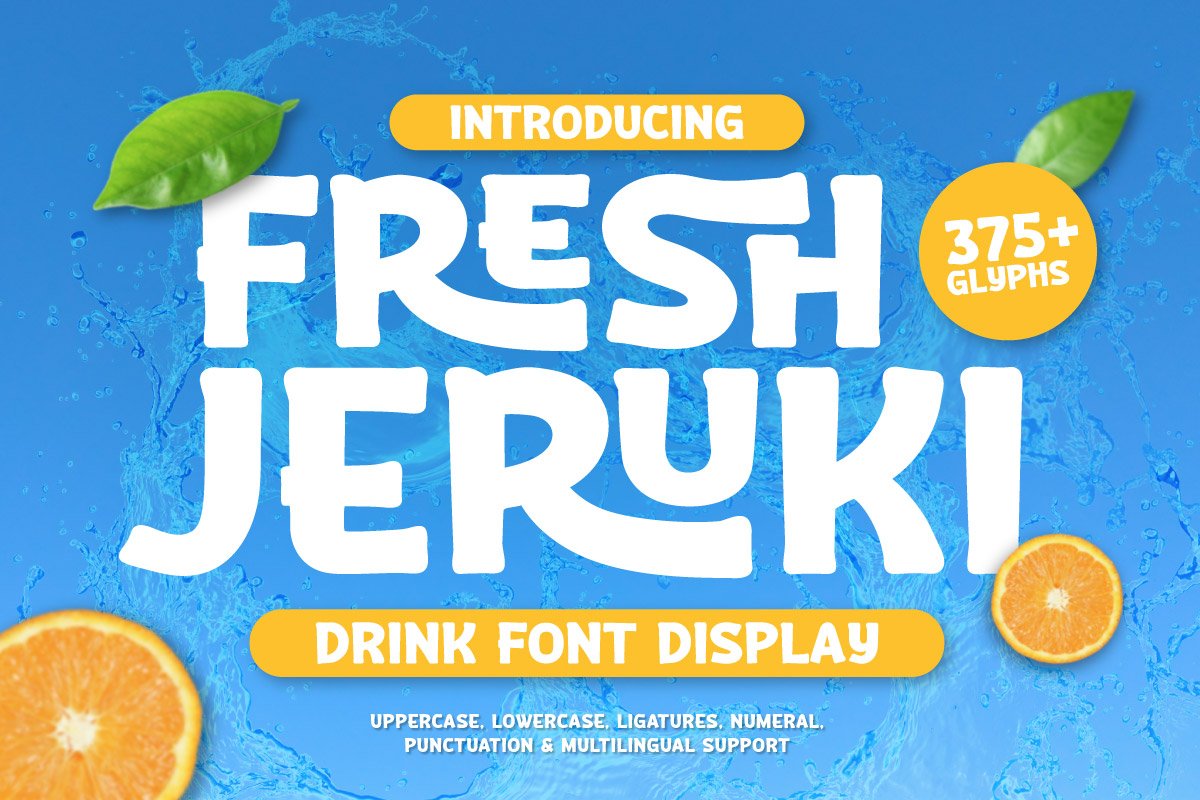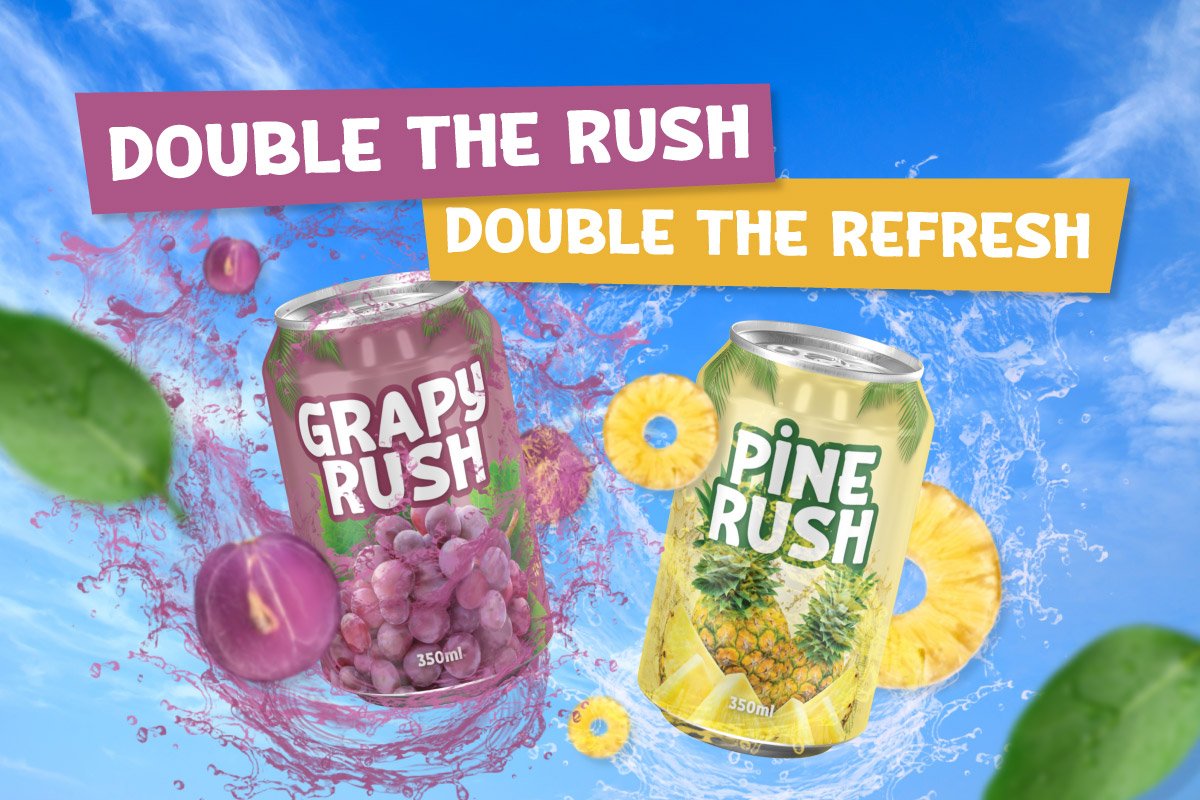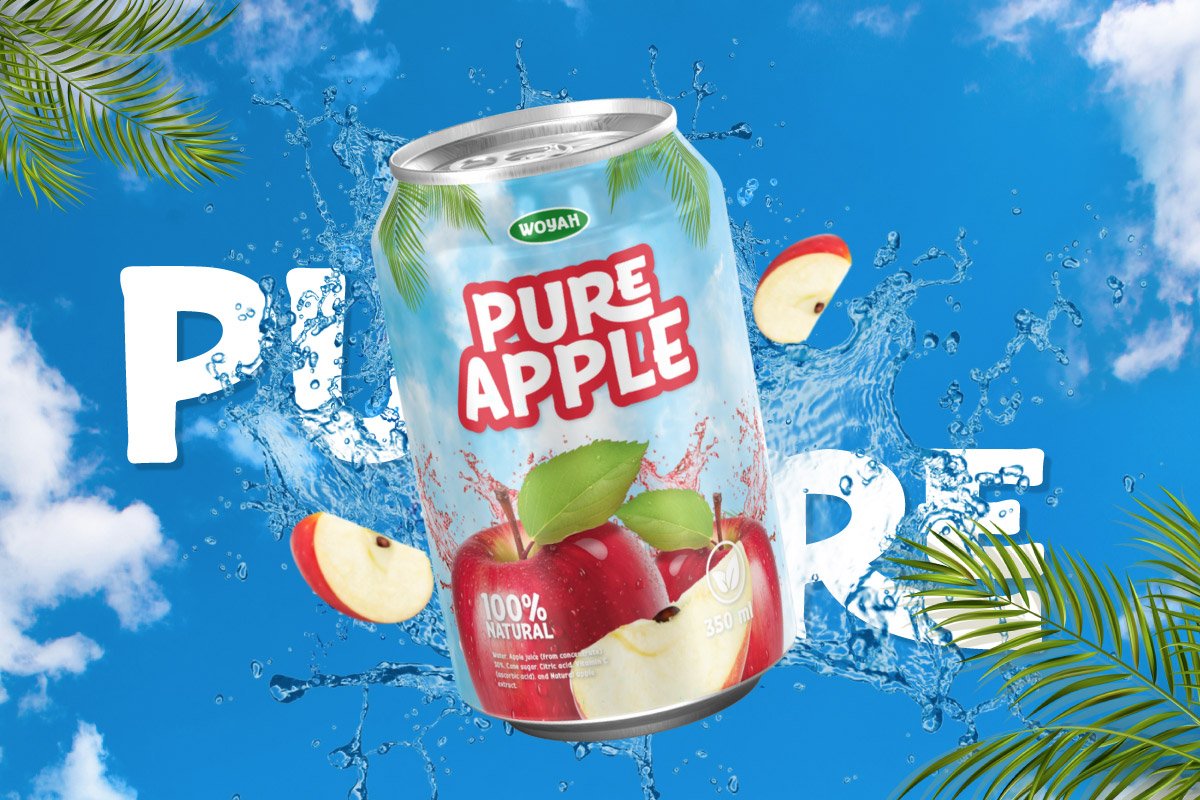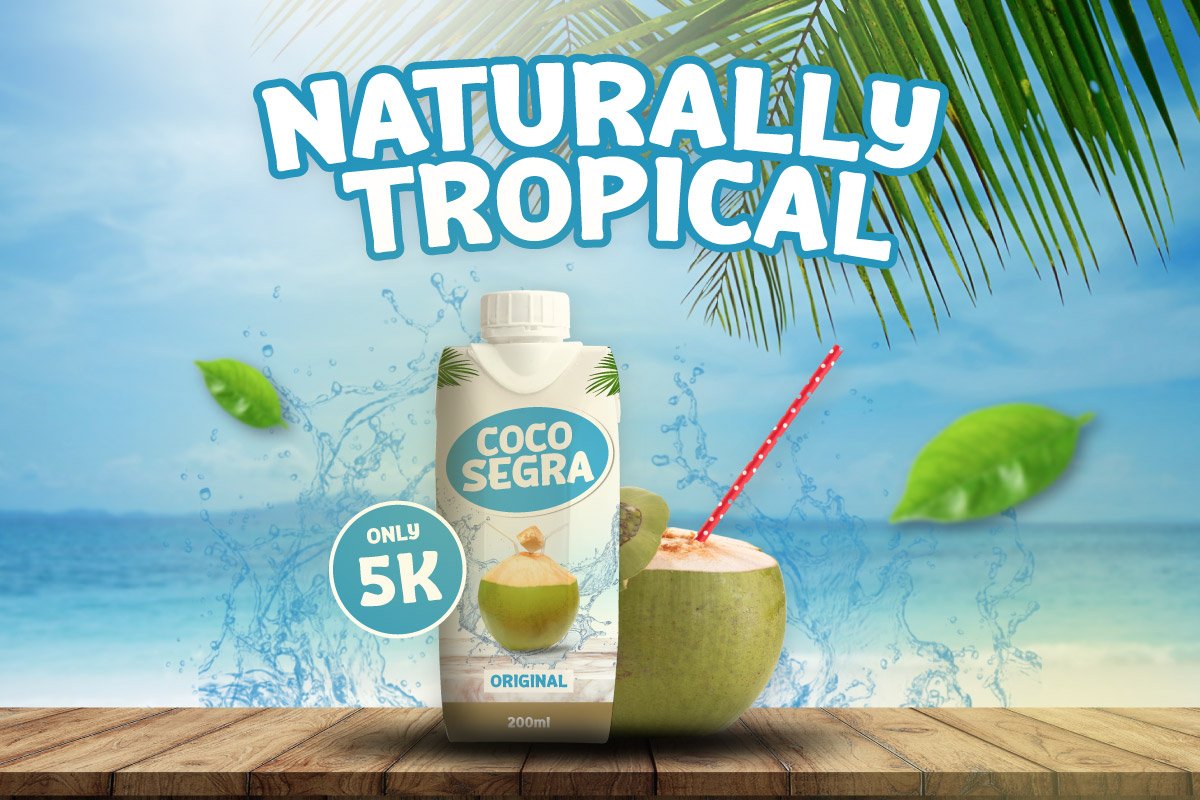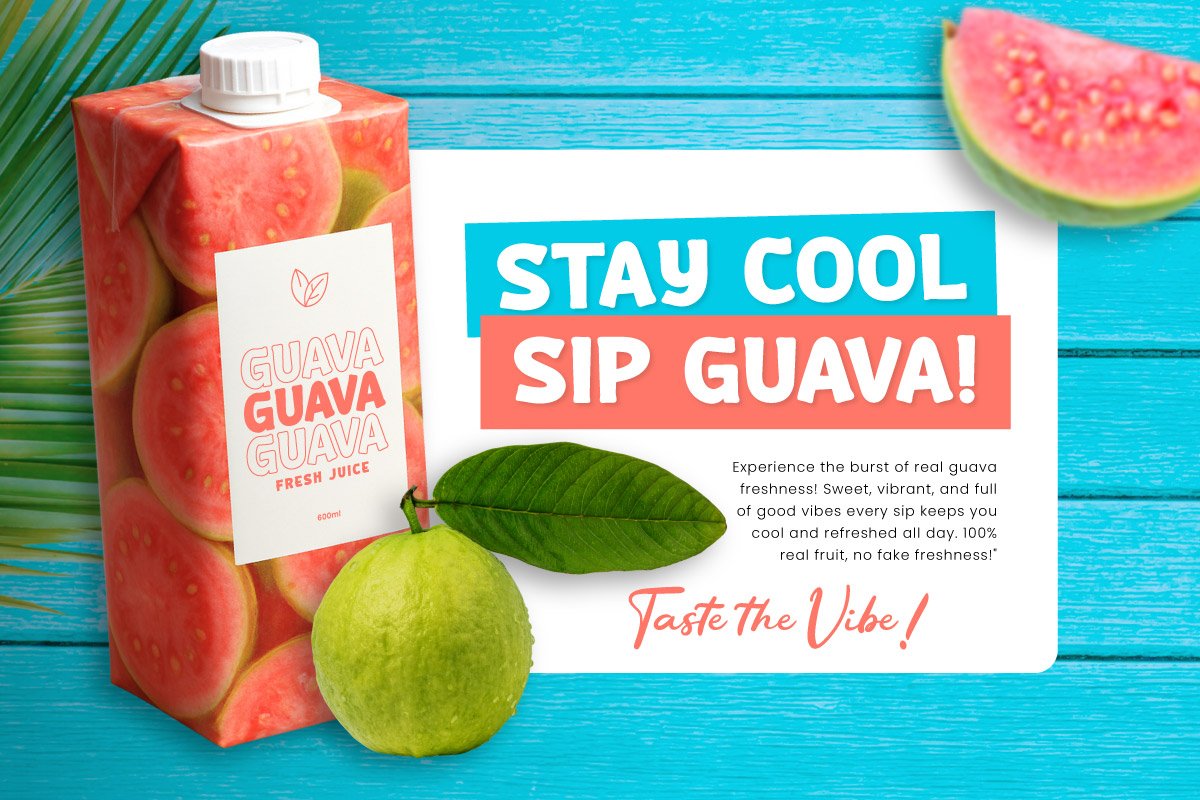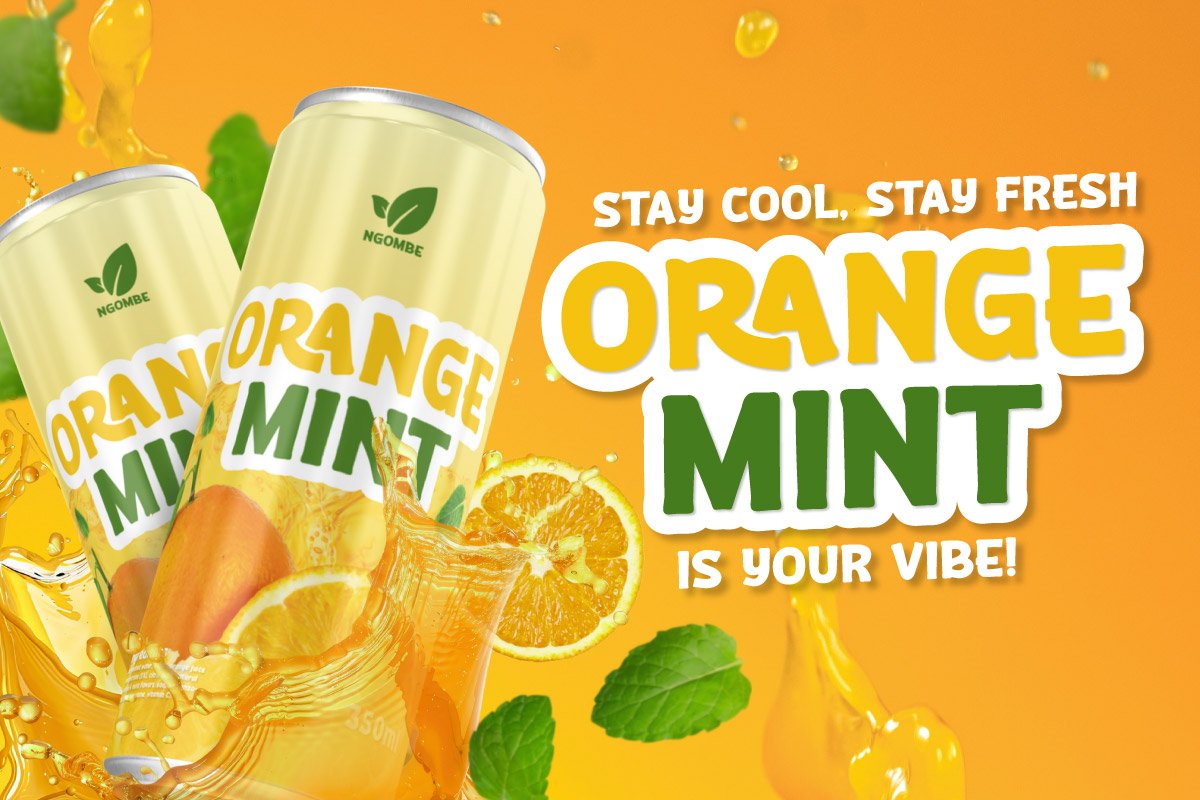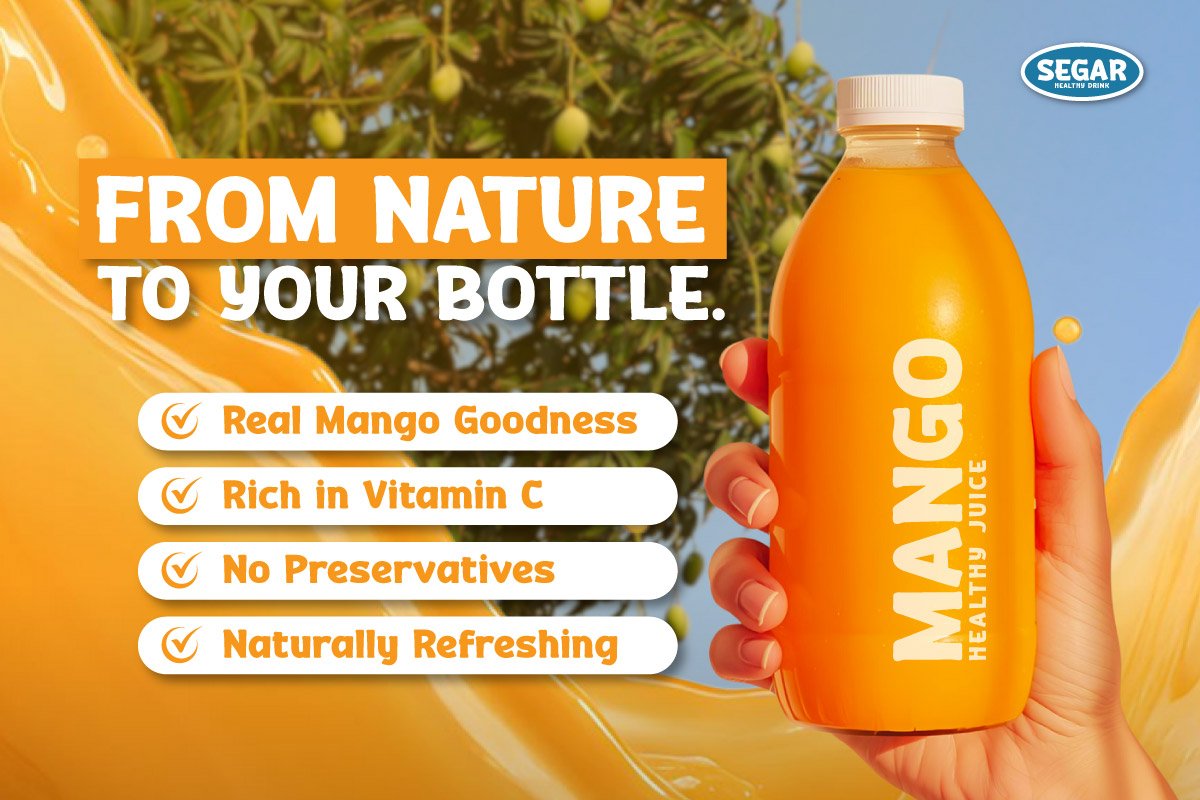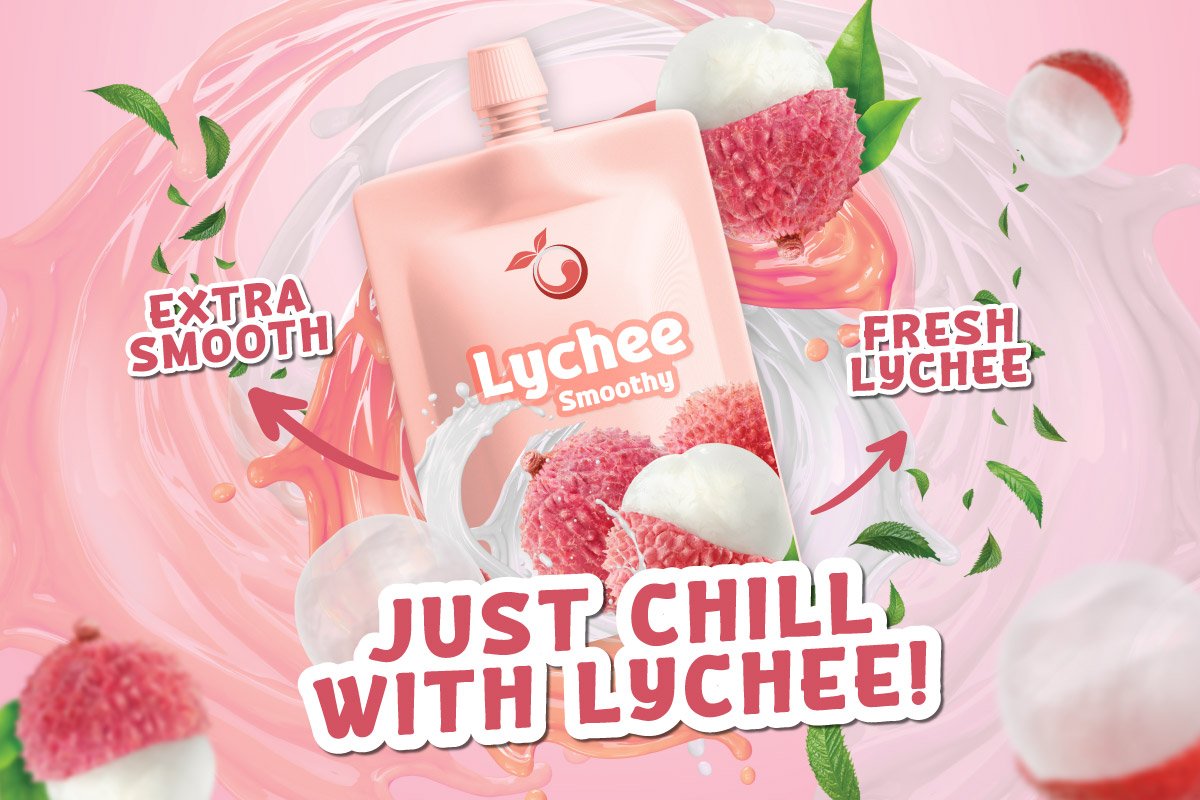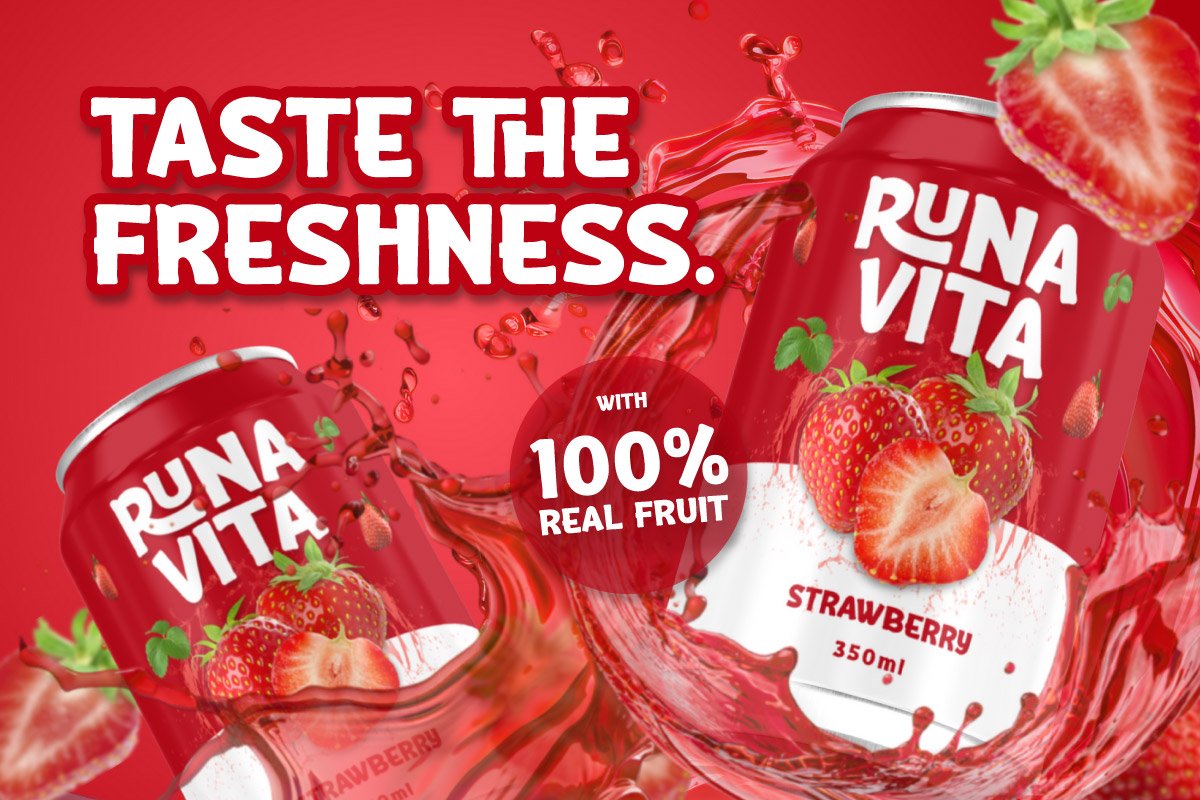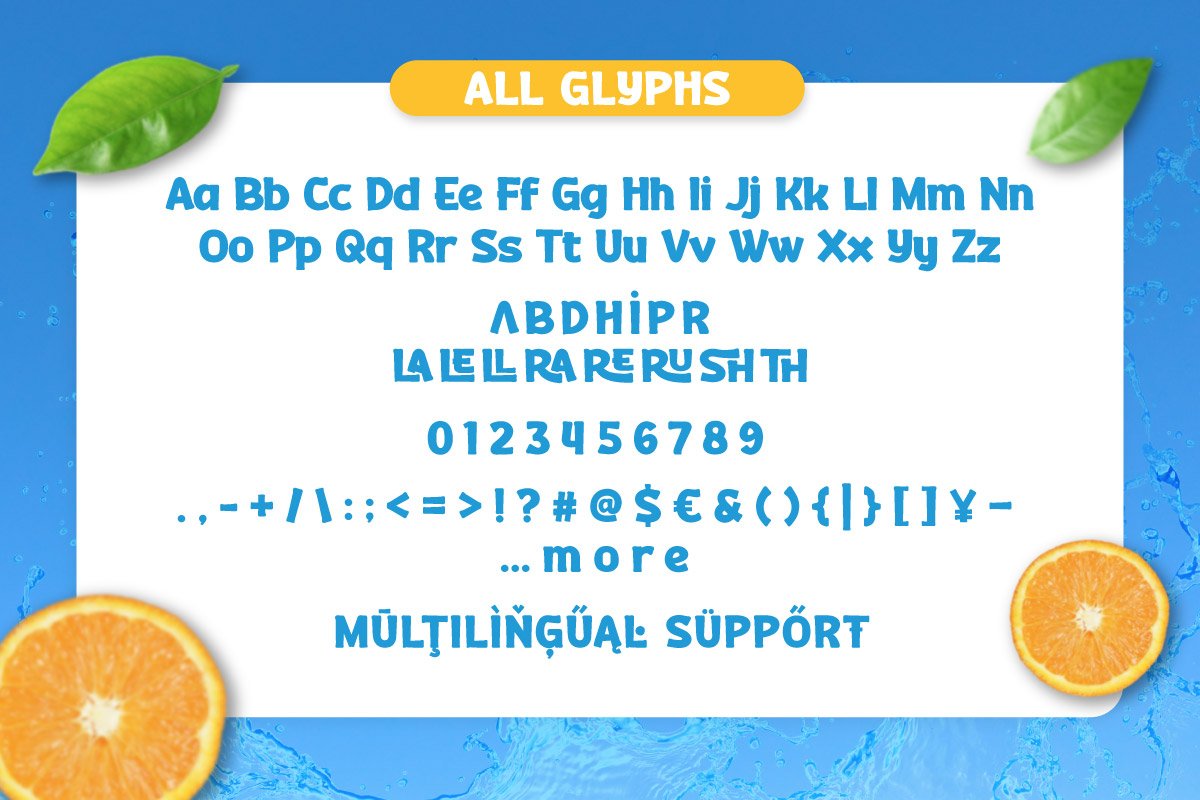
- Fresh Jeruki – Drink Font
Fresh Jeruki – Drink Font Display is a lively and juicy typeface bursting with playful energy and tropical freshness. Inspired by the vibrant colors and cheerful spirit of summer beverages, this font brings a sense of fun and positivity to every design. Its rounded, fluid letterforms capture the look of splashing water and fresh citrus, making it perfect for designs that radiate freshness and happiness.
Packed with 375+ glyphs, including uppercase, lowercase, ligatures, numerals, punctuation, and multilingual support, Fresh Jeruki gives designers the flexibility to craft eye-catching titles and fun compositions. The bouncy rhythm and smooth curves make it ideal for projects that need to feel dynamic, lighthearted, and refreshing.
Fresh Jeruki works perfectly for beverage packaging, fruit product branding, posters, children’s book titles, summer campaigns, or any creative project that celebrates freshness and joy. It’s a playful font that turns every word into a splash of energy and creativity.